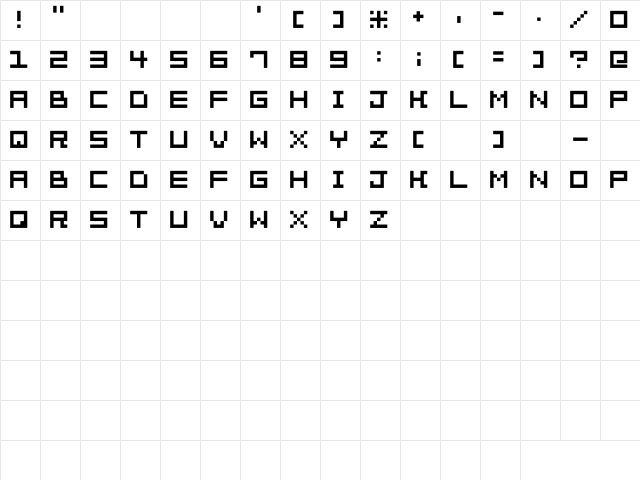
Bit Trip7 (sRB) Regular
Design Context for Bit Trip7 (sRB)
Bit Trip7 (sRB) is a composed and adaptable typeface that performs quietly and consistently across a wide range of design contexts.